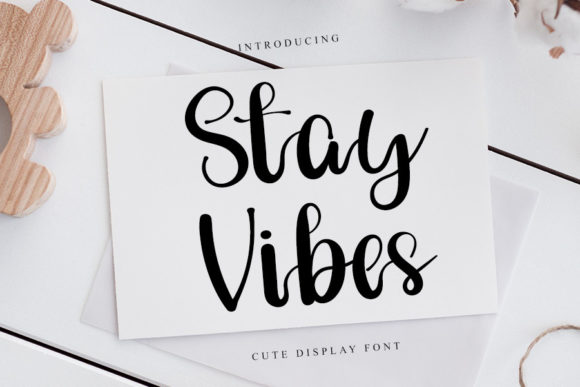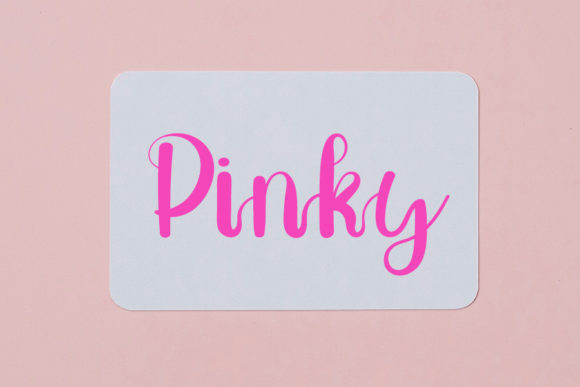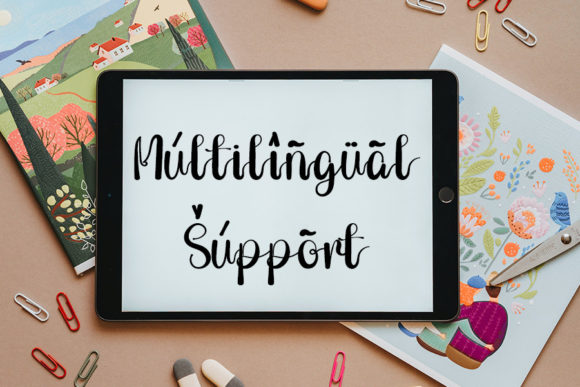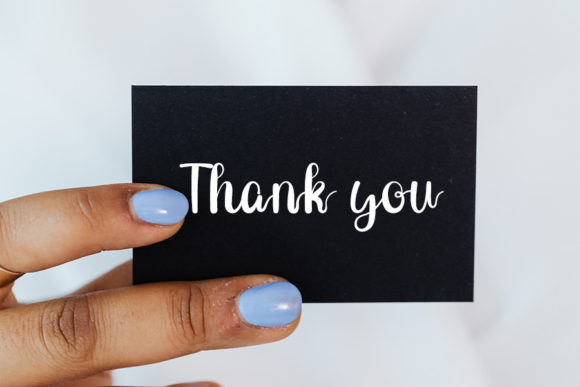
About Stay Vibes Font
Stay Vibes is a captivating and stylish handwritten font that seamlessly merges modern elements with the timeless charm of classic calligraphy. Its meticulously balanced and diverse design makes it a valuable tool for elevating the visual appeal of your creative projects.
When it comes to branding and logo design, Stay Vibes’ chic and refined letterforms can create a distinctive and memorable identity for your brand. Its contemporary yet classic aesthetics convey a sense of sophistication and allure, allowing your brand to leave a lasting impression on your target audience.
In printed materials like brochures, posters, and flyers, Stay Vibes’ impeccable form and fluid strokes ensure clear legibility and an elegant appearance. The font’s versatile design adds a touch of modernity and grace to your promotional materials, effectively conveying your message to your audience.
Stay Vibes’ contemporary aura also lends itself well to digital designs. Whether you’re crafting website headers, social media graphics, or digital ads, the font’s stylish and sleek look can enhance the visual impact of your online presence, making it engaging and visually appealing.
For special occasions such as wedding invitations, event announcements, and greeting cards, Stay Vibes’ timeless calligraphic inspiration brings a sense of romance and sophistication. Its graceful curves and well-proportioned characters contribute to an elegant and luxurious ambiance, setting the tone for unforgettable celebrations.
Stay Vibes’ versatility extends to a range of creative projects, including book covers, packaging designs, and product labels. Its modern yet classic flair can add a touch of refinement to your creations, making them stand out on the shelves and capturing the attention of discerning consumers.
Whether used for prominent headlines or subtle text, Stay Vibes’ meticulously crafted design ensures legibility and visual harmony across various applications. Its varied strokes and impeccable form contribute to a cohesive and aesthetically pleasing typographic experience.
In summary, Stay Vibes is a stylish handwritten font that seamlessly blends contemporary aesthetics with the timeless allure of classic calligraphy. Its impeccable form and versatility make it a valuable asset for branding, printed materials, digital designs, special occasions, and a wide array of creative endeavors.